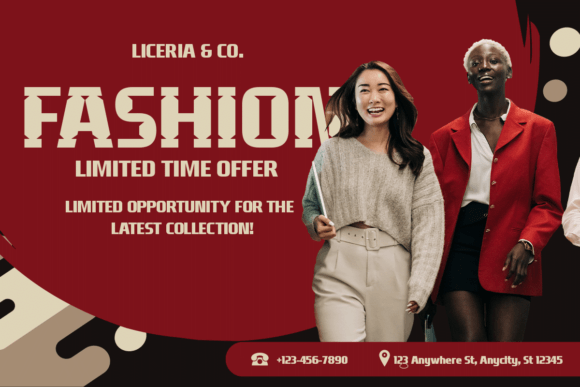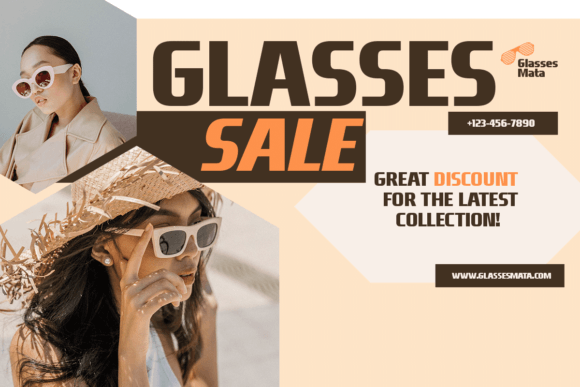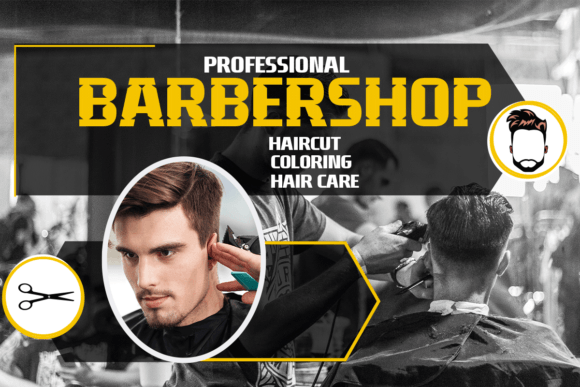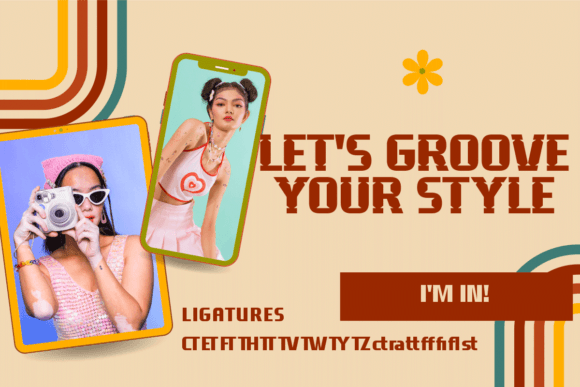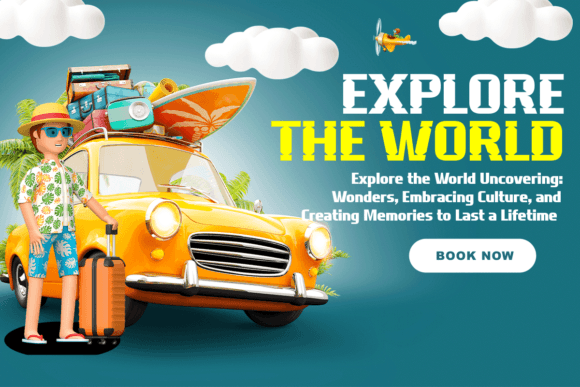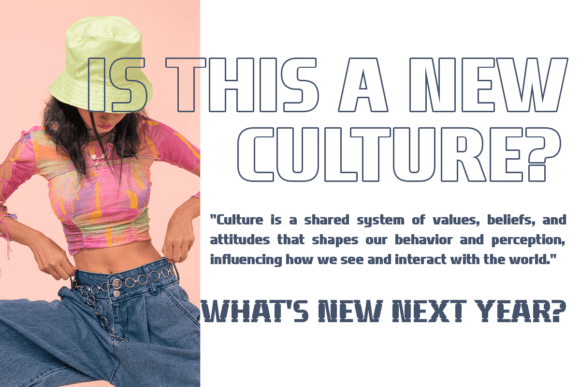
Introducing Hambare Font: The Ultimate Choice for Bold, Elegant, and Futuristic Designs
In the world of typography, fonts play a crucial role in conveying the message and aesthetic of a design. For designers and crafters, finding the perfect font that combines style, readability, and versatility can be a daunting task. However, if you’re looking for a font that ticks all these boxes and more, look no further than Hambare Font. This sans serif font family is bold, elegant, and futuristic, making it an ideal choice for digital and print designs.
Clean Lines and Balanced Proportions
One of the standout features of Hambare Font is its clean lines and balanced proportions. The font’s sleek and minimalist design ensures that it remains highly readable, even at smaller sizes. This makes it perfect for body text, captions, and other applications where legibility is key. The balanced proportions also give Hambare a sense of harmony and stability, making it suitable for a wide range of design applications, from corporate branding to digital marketing materials.
Six Styles to Mix and Match
Hambare Font comes with six styles, offering designers the flexibility to create visually appealing and cohesive designs. Whether you need a bold and attention-grabbing headline or a clean and elegant body text, Hambare has got you covered. The six styles can be mixed and matched to create a unique visual identity that sets your design apart from the rest. This versatility makes Hambare an excellent choice for designers who want to experiment with different typography styles without sacrificing consistency.
Ideal for Digital and Print Designs
In today’s digital age, designers need fonts that can seamlessly transition from screen to print. Hambare Font is optimized for both digital and print designs, ensuring that it looks great whether it’s used on a website, social media post, or print advertisement. The font’s high level of legibility and clarity makes it perfect for digital applications, while its elegant design ensures that it stands out in print.
Take Your Designs to the Next Level
With Hambare Font, designers can elevate their designs to new heights. The font’s bold, elegant, and futuristic design ensures that it grabs attention and makes a lasting impression. Whether you’re working on a branding project, website design, or marketing materials, Hambare provides the visual impact you need to take your designs to the next level. Its versatility and flexibility make it an excellent choice for designers who want to push the boundaries of typography and create something truly unique.
Key Features of Hambare Font
- Bold, elegant, and futuristic design: Hambare Font makes a statement with its sleek and modern design.
- Clean lines and balanced proportions: Ensures high legibility and readability.
- Six styles to mix and match: Offers designers the flexibility to create unique and cohesive designs.
- Ideal for digital and print designs: Optimized for both screen and print applications.
- Highly legible and clear: Perfect for body text, captions, and other applications where readability is key.
In conclusion, Hambare Font is an exceptional sans serif font family that offers designers a unique combination of style, readability, and versatility. Its bold, elegant, and futuristic design makes it perfect for a wide range of design applications, from corporate branding to digital marketing materials. With its clean lines, balanced proportions, and six styles to mix and match, Hambare provides the flexibility and visual impact designers need to take their designs to the next level. Whether you’re a designer or crafter, Hambare Font is an excellent choice for anyone looking to elevate their typography and create stunning designs.